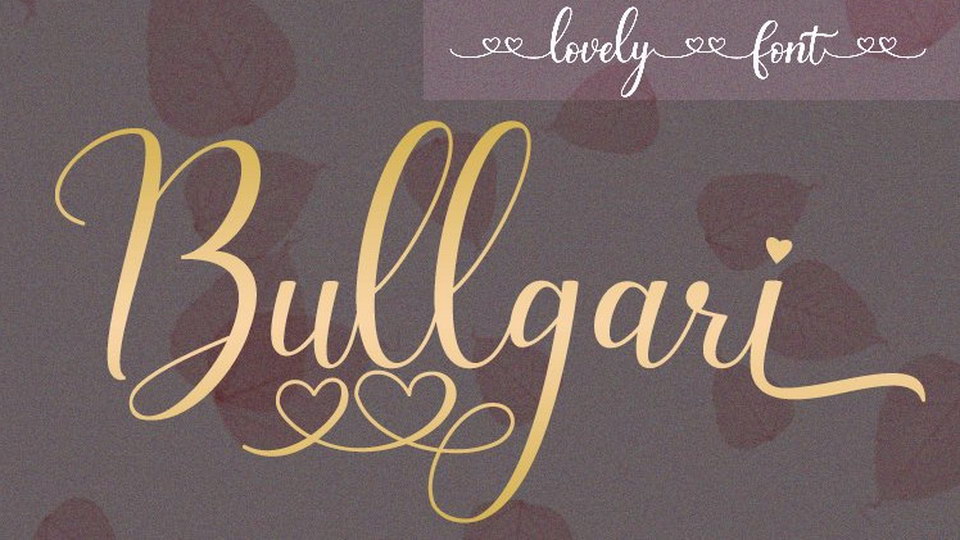
Download Bullgari font, a lovely handwritten Typeface with romantic look. Bullgari is ideal choice for wedding and Valentine’s design, cards, letters and other beautiful projects.
Designer: YonTypeStudioCo